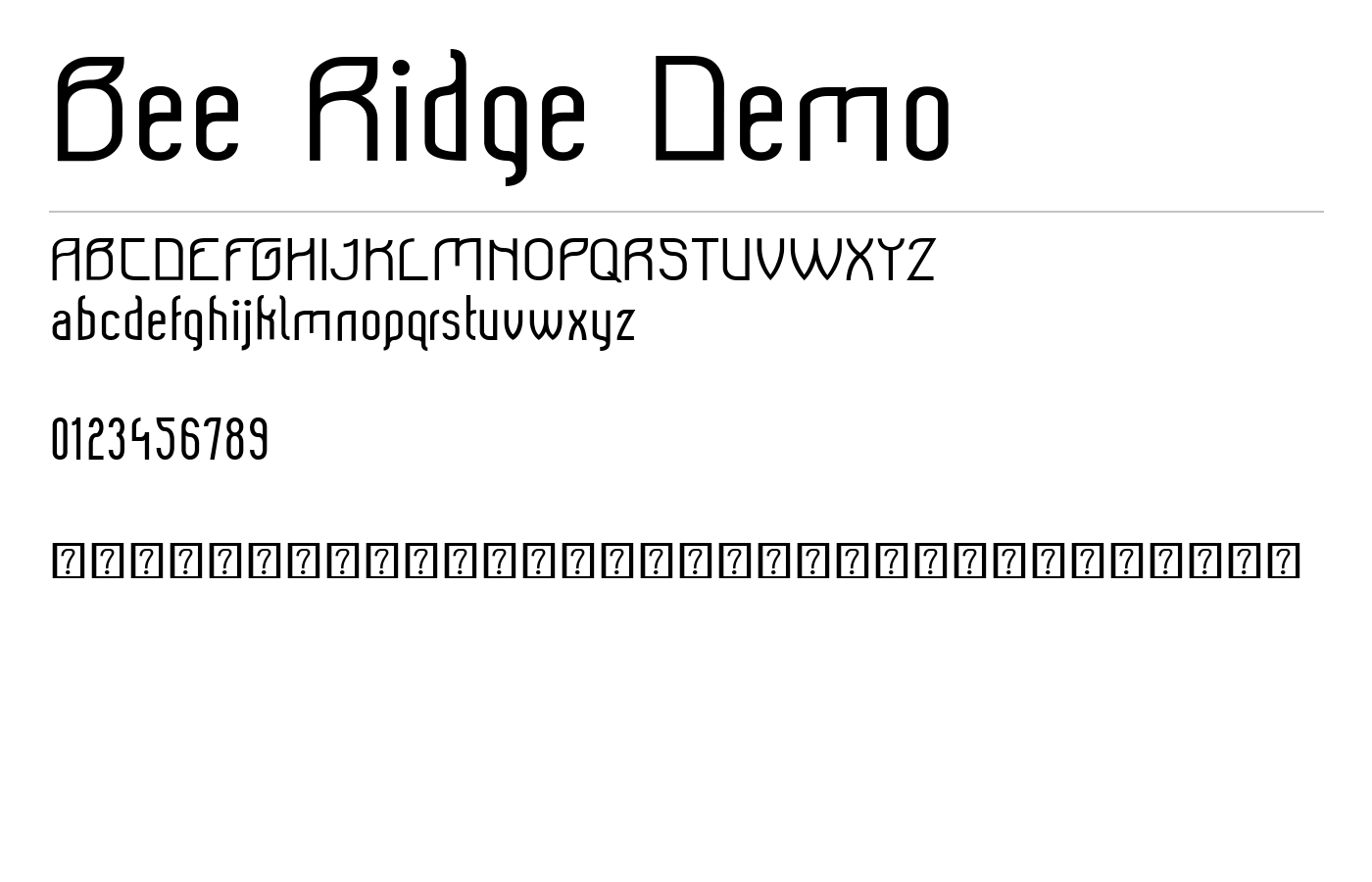
Bee Ridge Demo is a distinctive sans serif font with a narrow, condensed style and a modern, geometric feel. Its unique letterforms, featuring subtle curves and angular details, give it a tech-inspired, futuristic personality ideal for branding, headlines, and creative projects that seek a sleek, contemporary look. This font works well in editorial designs and digital media where originality and a clean, sharp appearance are desired.
Bee Ridge Demo Font
About Bee Ridge Demo Font